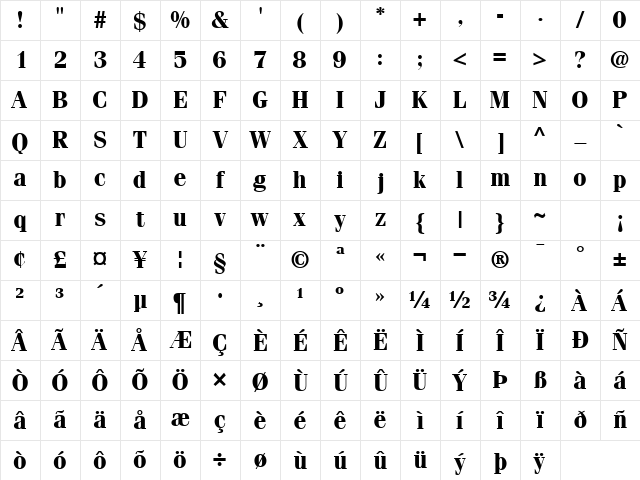
Complete CompendiumSSK Bold glyph index. Displaying only characters natively supported by CompendiumSSK Bold font.
CompendiumSSK is a composed and adaptable typeface that performs quietly and consistently across a wide range of design contexts. Its bold stroke weight gives it real presence on the page.